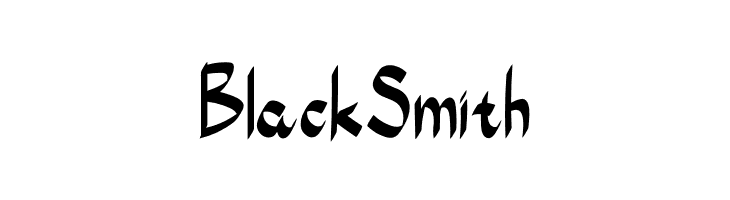
Abstract decorative symbols, not a valid font.
( Mandy Smith - gravatar.com/mandysmith551 )
A bold, geometric stencil font with a modern industrial feel.
( Toto - k22fonts.blogspot.com/ )
A bold, decorative font with angular, ornate designs and intricate flourishes.
( AARRGGHH! )
A decorative serif font with textured vertical lines and sharp serifs.
( AARRGGHH! )
A bold, fiery-themed decorative font with thick strokes and an energetic style.
( AARRGGHH! )
A bold, outlined serif font with a modern twist and classic elements.
( AARRGGHH! )
A bold, decorative font with a unique striped pattern and modern geometric style.
( Dan Smith's Fantasy Fonts - www.acondia.com/fonts/index.html )
A bold, abstract font with geometric and artistic elements.
( Dan Smith's Fantasy Fonts - www.acondia.com/fonts/index.html )
A Celtic-inspired decorative font with sharp, angular serifs and a medieval flair.
( Dan Smith's Fantasy Fonts - www.acondia.com/fonts/index.html )
A bold, Celtic-inspired font with sharp, angular edges and a medieval aesthetic.
( Dan Smith's Fantasy Fonts - www.acondia.com/fonts/index.html )
A bold, geometric font with a modern and assertive style.
( Dan Smith's Fantasy Fonts - www.acondia.com/fonts/index.html )
A decorative, runic-inspired font with angular, geometric shapes.
( Dan Smith's Fantasy Fonts - www.acondia.com/fonts/index.html )
A bold, angular font with a gothic and modern geometric flair.
( Dan Smith's Fantasy Fonts - www.acondia.com/fonts/index.html )
A bold, angular font with a medieval or gothic style, featuring sharp, geometric characters.
( Fonts by AurekFonts )
A futuristic and angular decorative font with a runic appearance.
A bold, modern font with geometric cut-out elements.